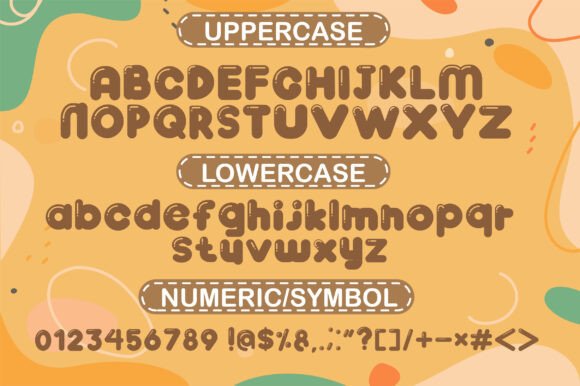
Introduction to Funny Bubbles Font
Have you ever been working on a creative project, pouring your heart and soul into it, only to feel like something’s missing? Maybe you’ve been brainstorming ideas, flipping through design resources, and scrolling through free downloads, but nothing seems quite right. That’s when I stumbled upon the Funny Bubbles Font – a game-changer for any design project that needs a little extra oomph!
This high-quality font is the perfect addition to any design, whether you’re working on a cover, poster, or crafty DIY project. With its transparent background and playful design, the Funny Bubbles Font is sure to bring a smile to anyone’s face. As a valuable resource for designers, it’s a must-have for anyone looking to add a touch of whimsy and fun to their work.
Key Features of Funny Bubbles Font
- Unique and playful design, perfect for creative projects that require a whimsical touch.
- Easy to customize and modify, making it a valuable asset for designers working on a wide range of creative projects.
Honest Review: Funny Bubbles Font
I recently stumbled upon the Funny Bubbles Font and I have to say it’s a delightful addition to any design resource. The free download offers a high-quality font that’s perfect for creative projects where you want to add a playful touch.
Here’s what works well: ✨ The font’s transparent background makes it easy to combine with other elements, and the design is quite versatile. It can be used for a variety of projects, from kids’ birthday invitations to social media graphics.
However, there are some limitations: ⚠️ The font is not as customizable as some other fonts on the market, and the character set is relatively limited. If you’re working on a project that requires a wide range of characters, you may need to look elsewhere.
Overall, I think the Funny Bubbles Font is a great resource for designers who want to add a lighthearted touch to their projects. It’s free, high-quality, and easy to use, making it a great choice for creative projects.
- Perfect for playful and creative projects
- Transparent background for easy combination with other elements
To get the most out of the Funny Bubbles Font, try using it in combination with other design resources, such as graphics and illustrations. Experiment with different font sizes, colors, and effects to create a unique and engaging design. Don’t be afraid to think outside the box and try new things!
The Funny Bubbles Font is perfect for a variety of creative projects, including social media graphics, posters, flyers, and more. It’s also great for adding a playful touch to your blog posts, articles, or website content.
Yes, the Funny Bubbles Font is a vector-based font, which means you can edit the individual shapes and components to create custom designs. You can use a vector graphics editor like Adobe Illustrator to manipulate the font and create unique designs for your creative project.